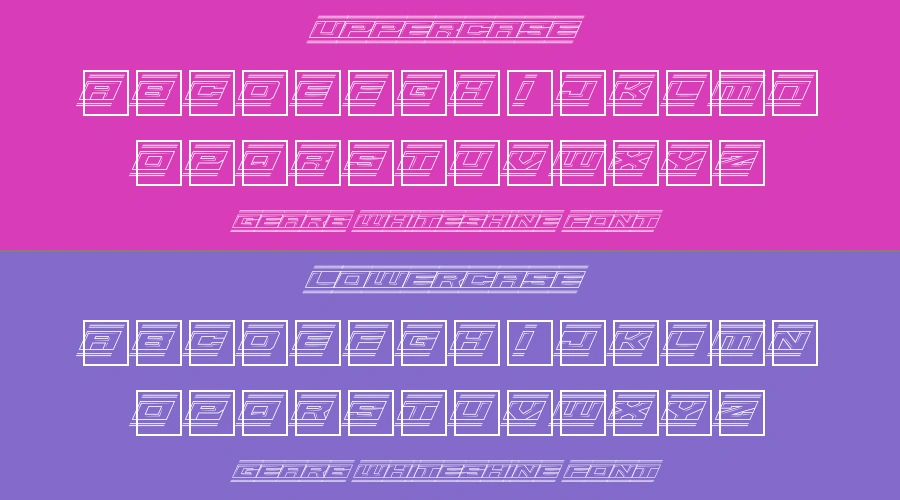
About Gear6 Whiteshine Font
Designed with precision, Gear6 Whiteshine Font merges impactful forms with clarity in every character. This versatility makes it particularly effective for product packaging, where durability and literary appropriateness directly impact communication quality. Each letterform demonstrates meticulous craftsmanship.
Technical excellence shines through elements like hand-drawn quality and proportional figures, enhancing typographic versatility. In traditional announcements settings, Gear6 Whiteshine Font proves its worth through superior file efficiency. The thoughtful execution of curve radius and contemporary relevance ensures professional results.